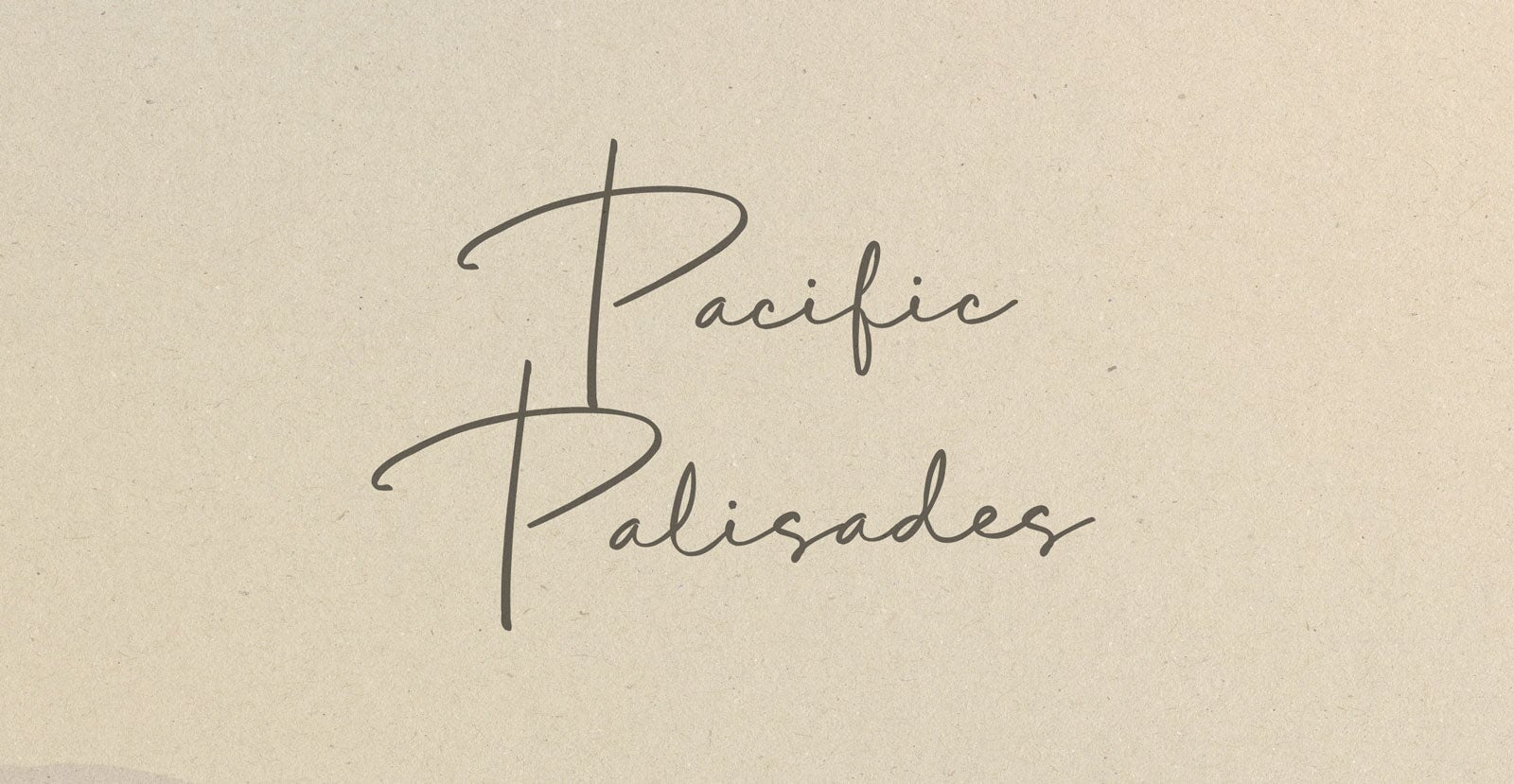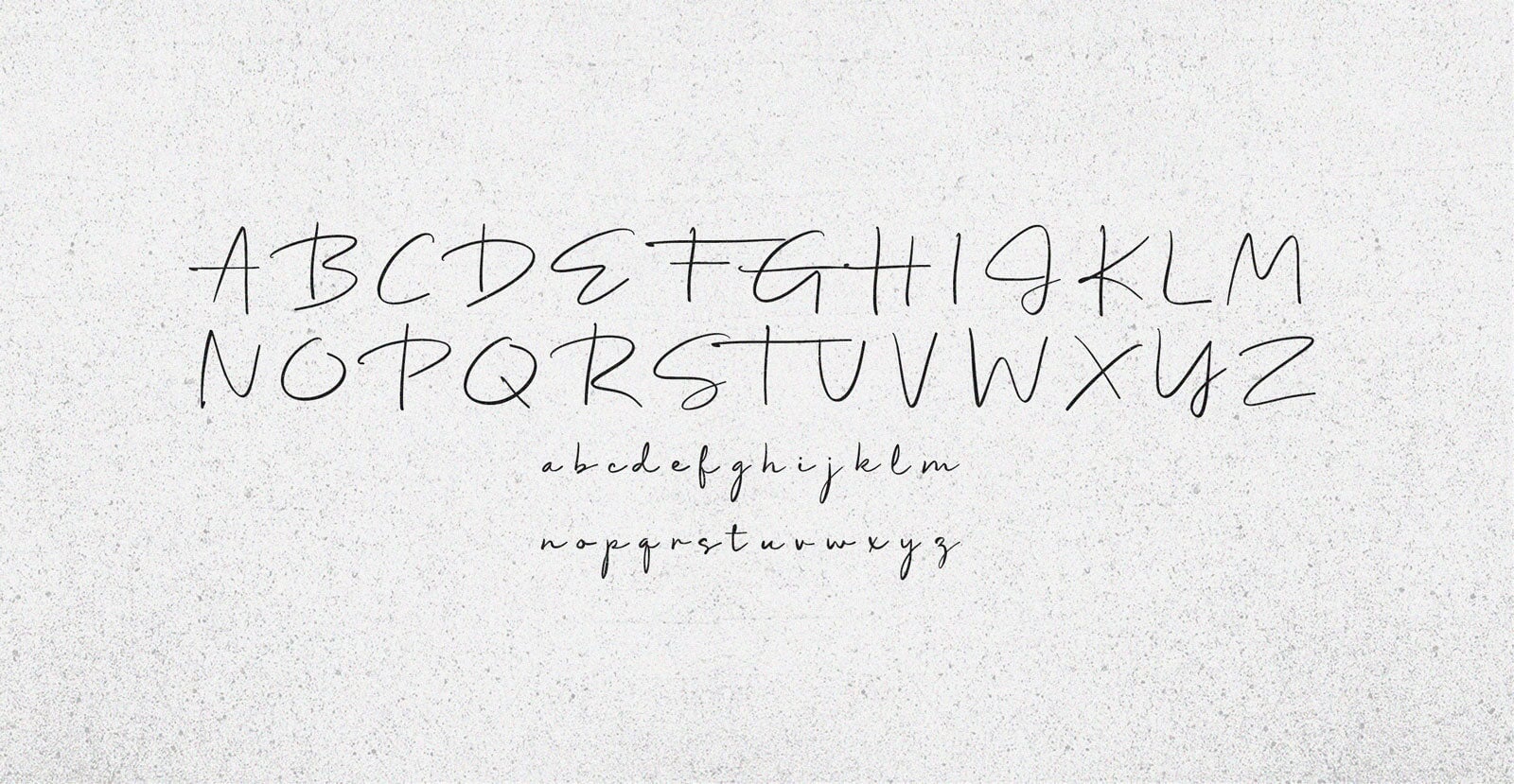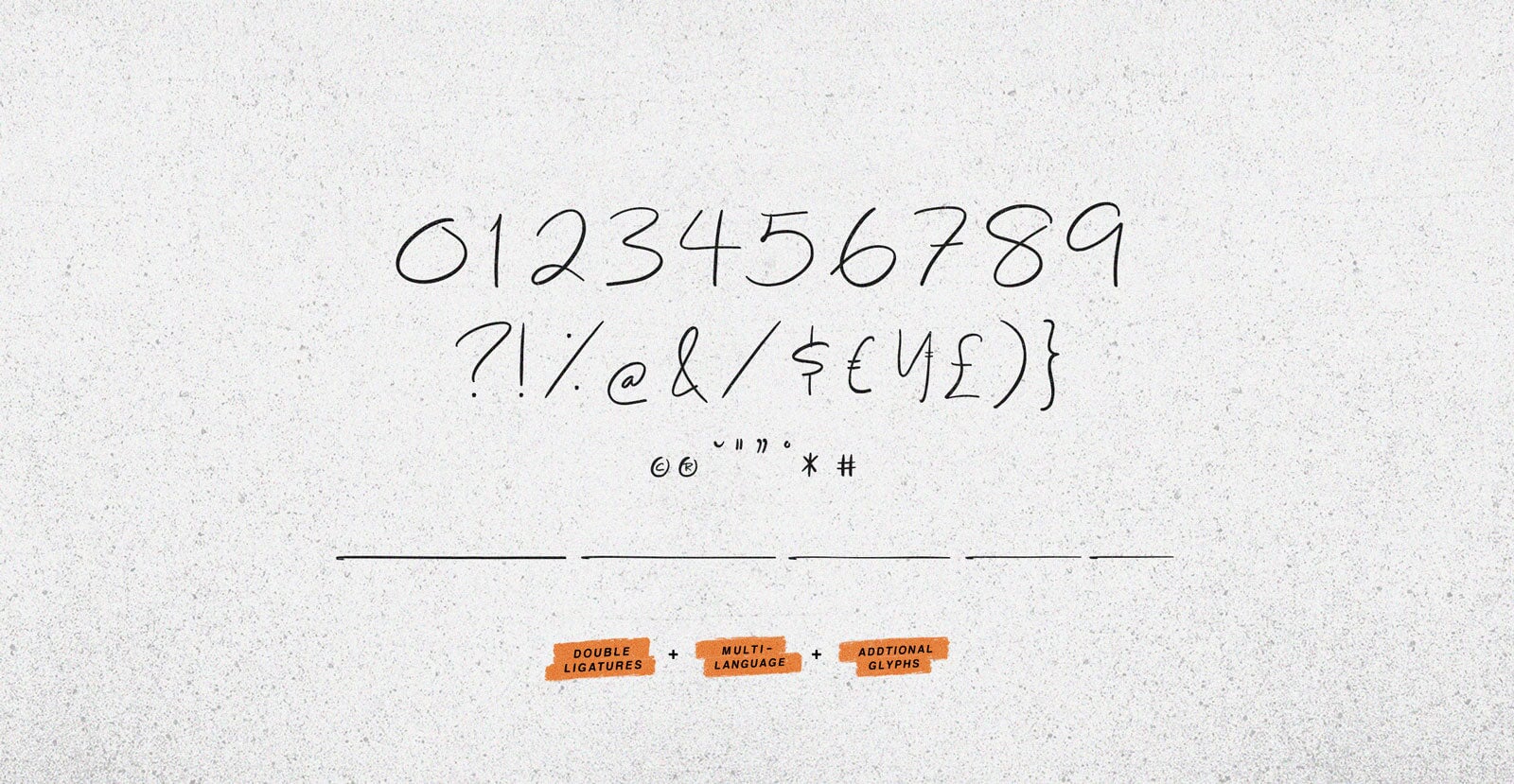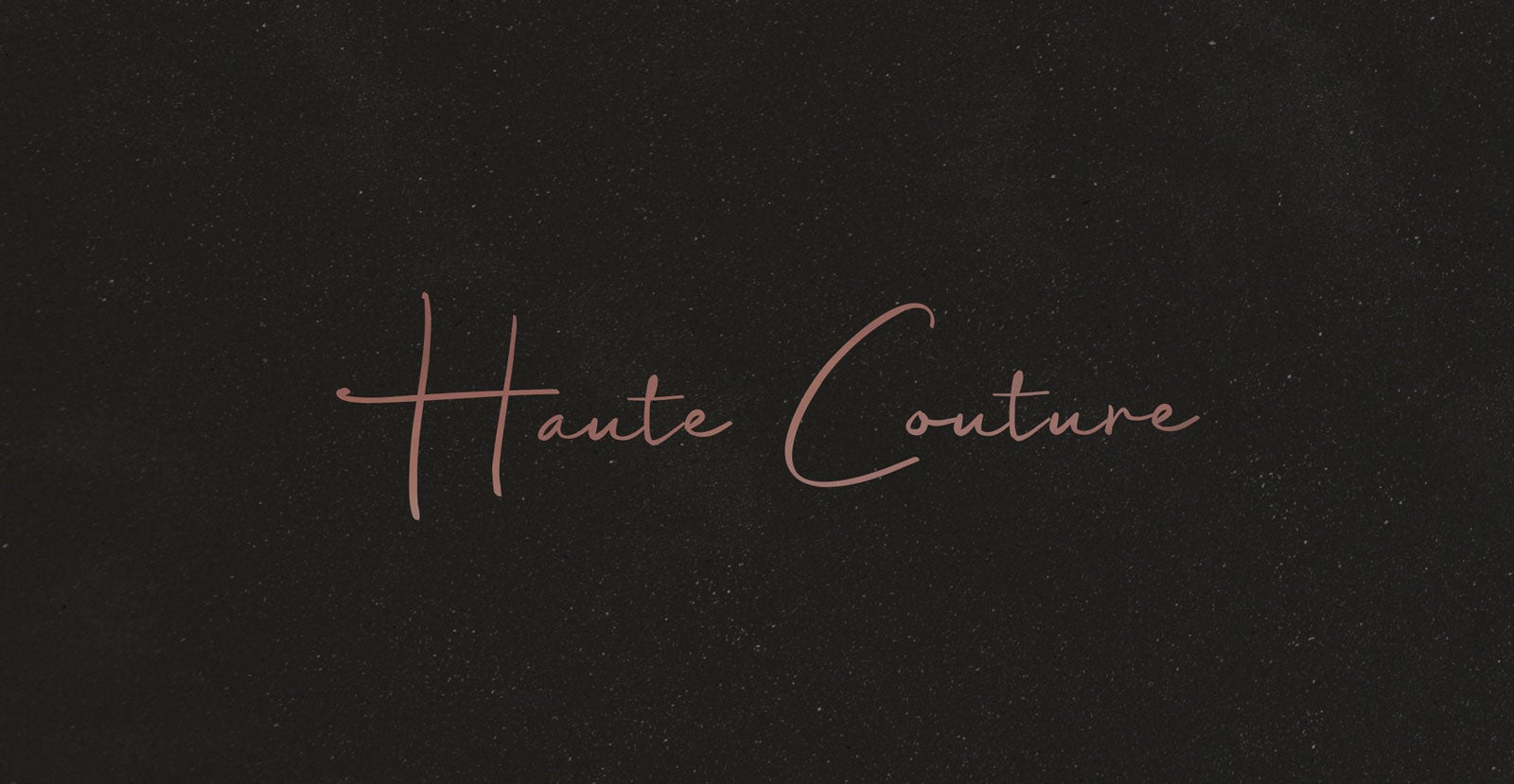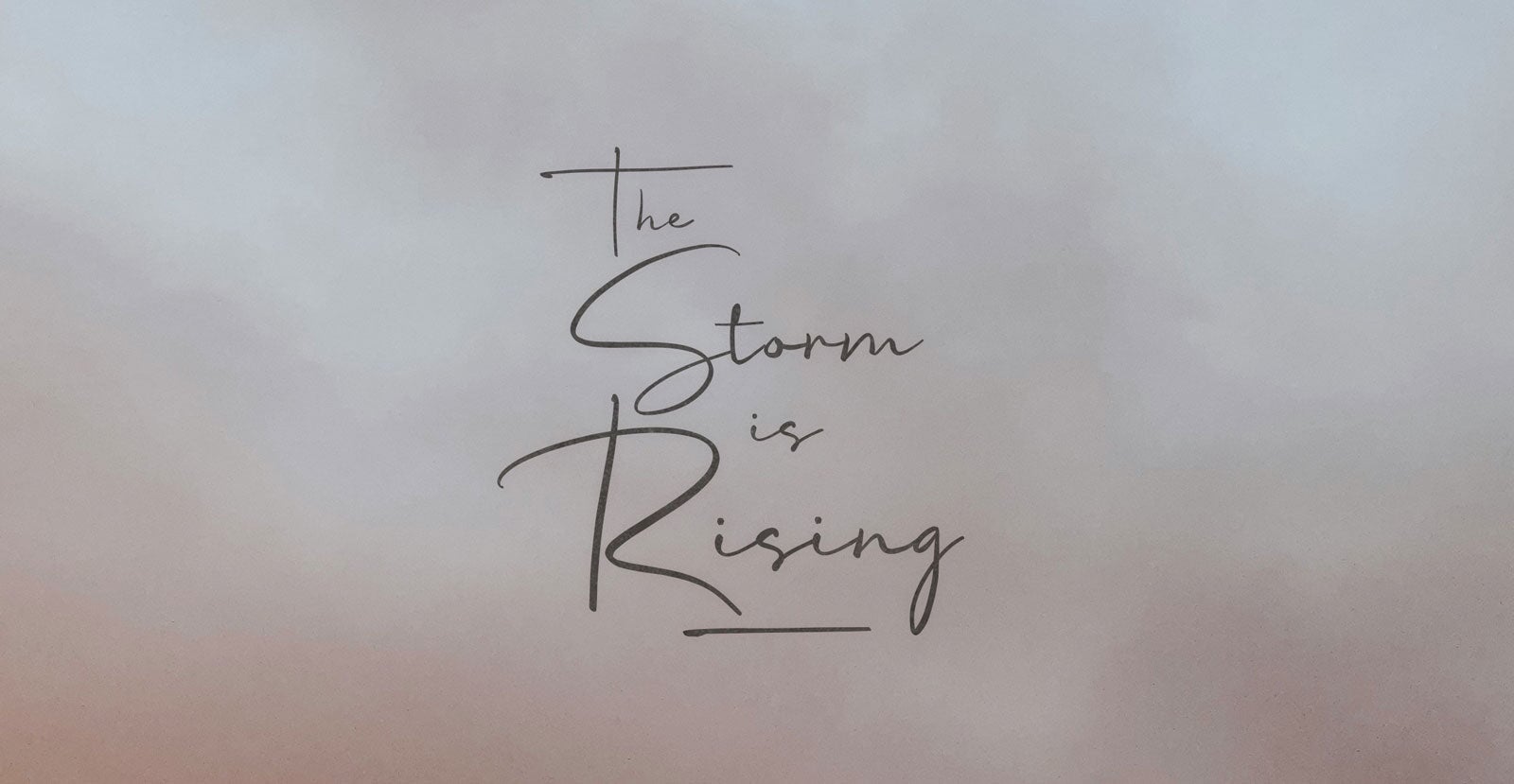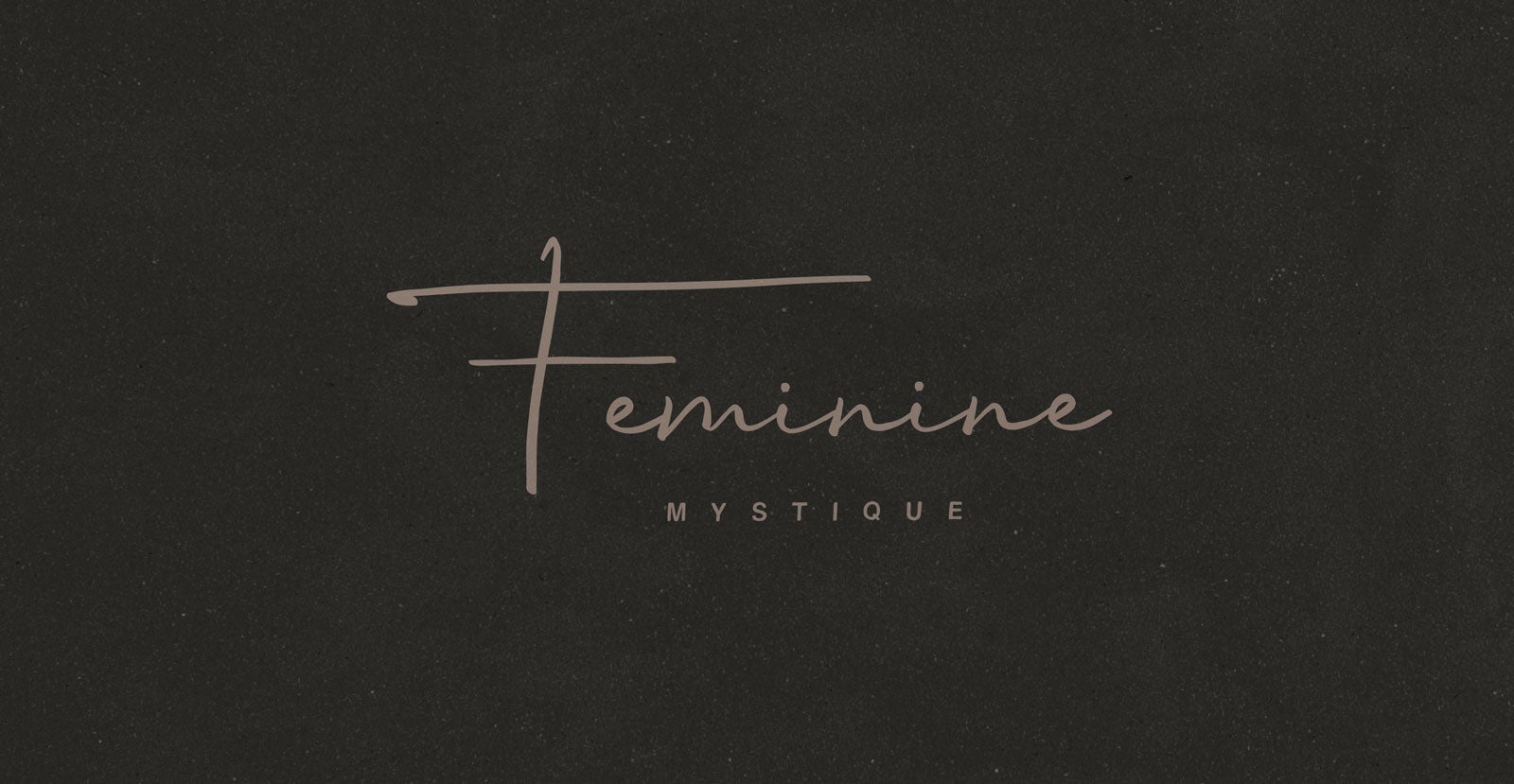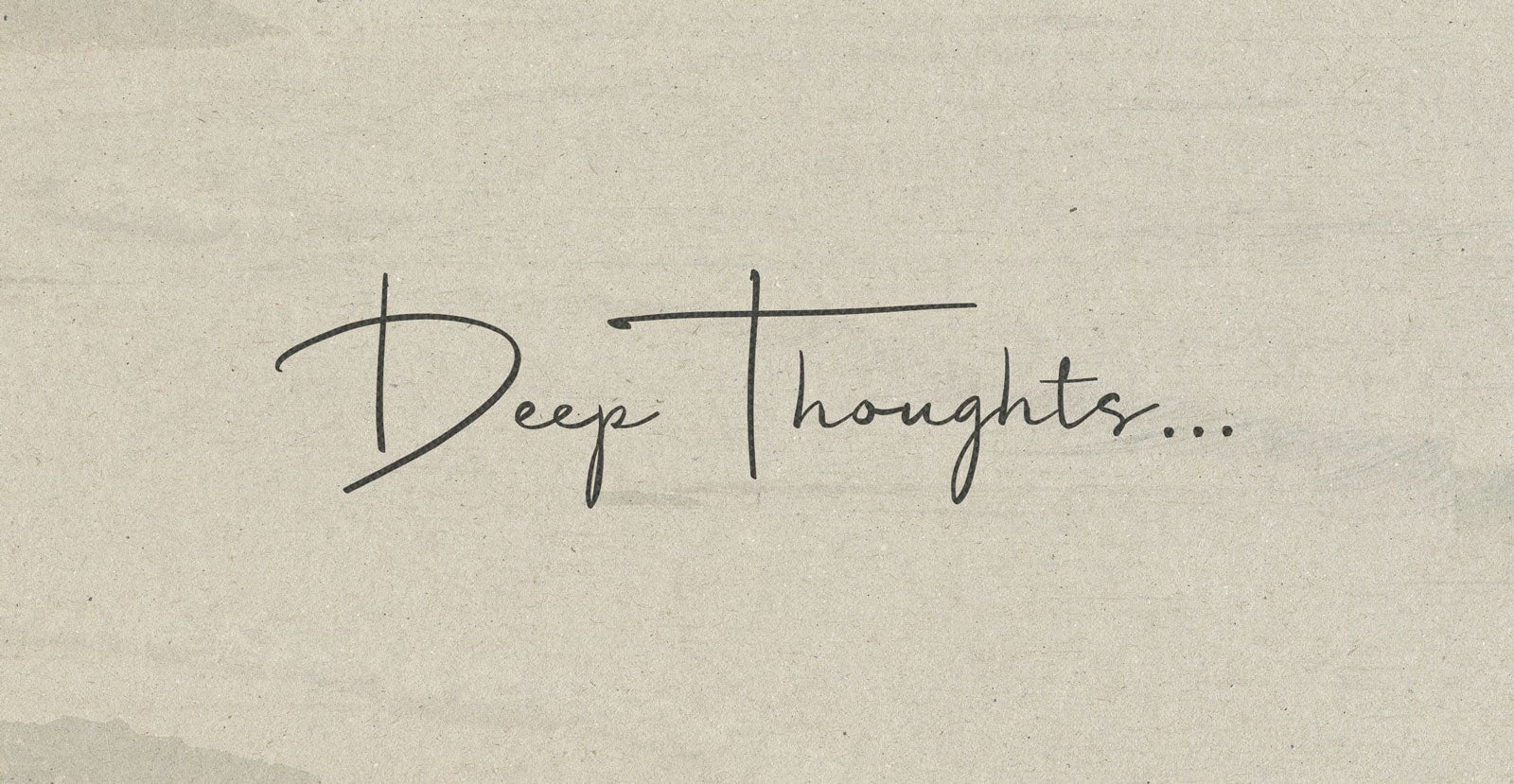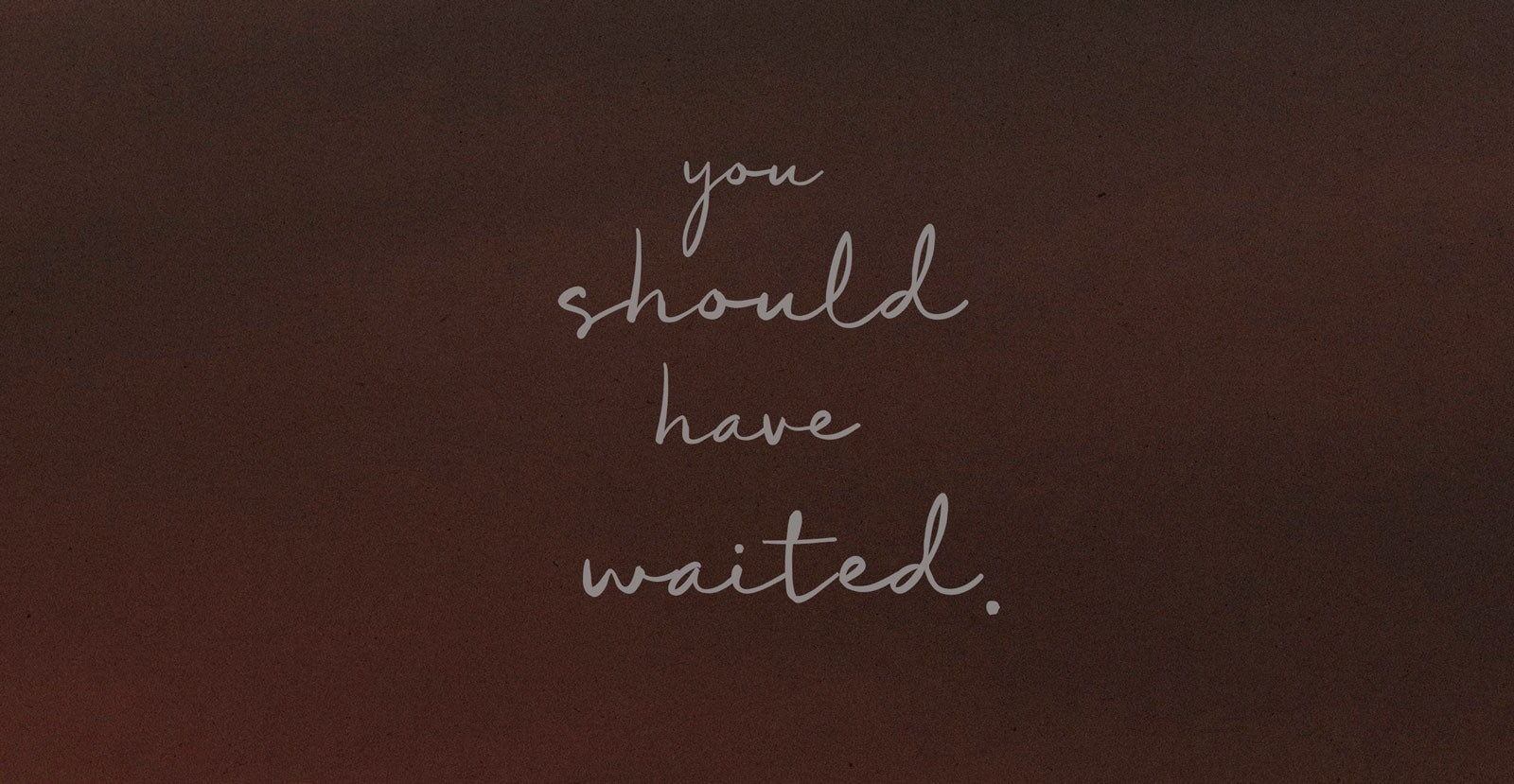
Pacific Palisades
Handwritten Pen Script Font
Where the ocean looks calm but hides its own secrets. Cliffs drop into fog, houses watch from the hills, and the streets go quiet after dark. It feels peaceful, but you can’t shake the sense that something is just out of sight, waiting past the next curve.